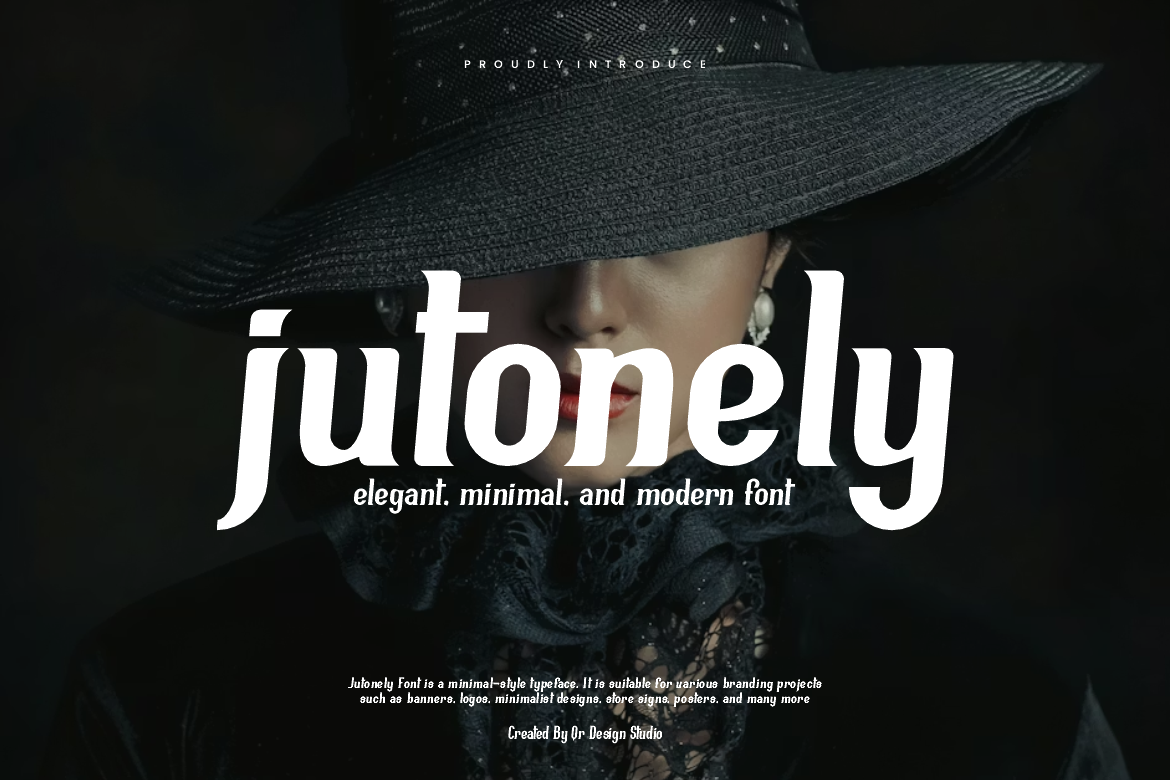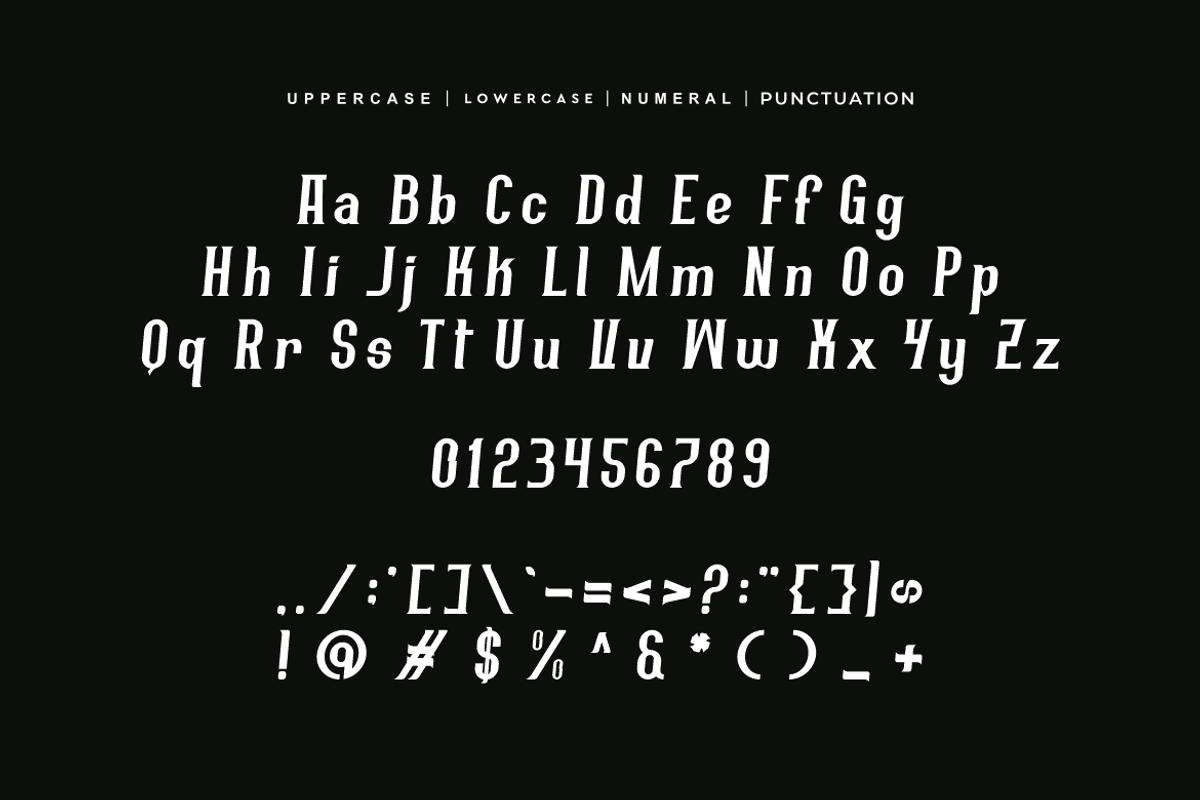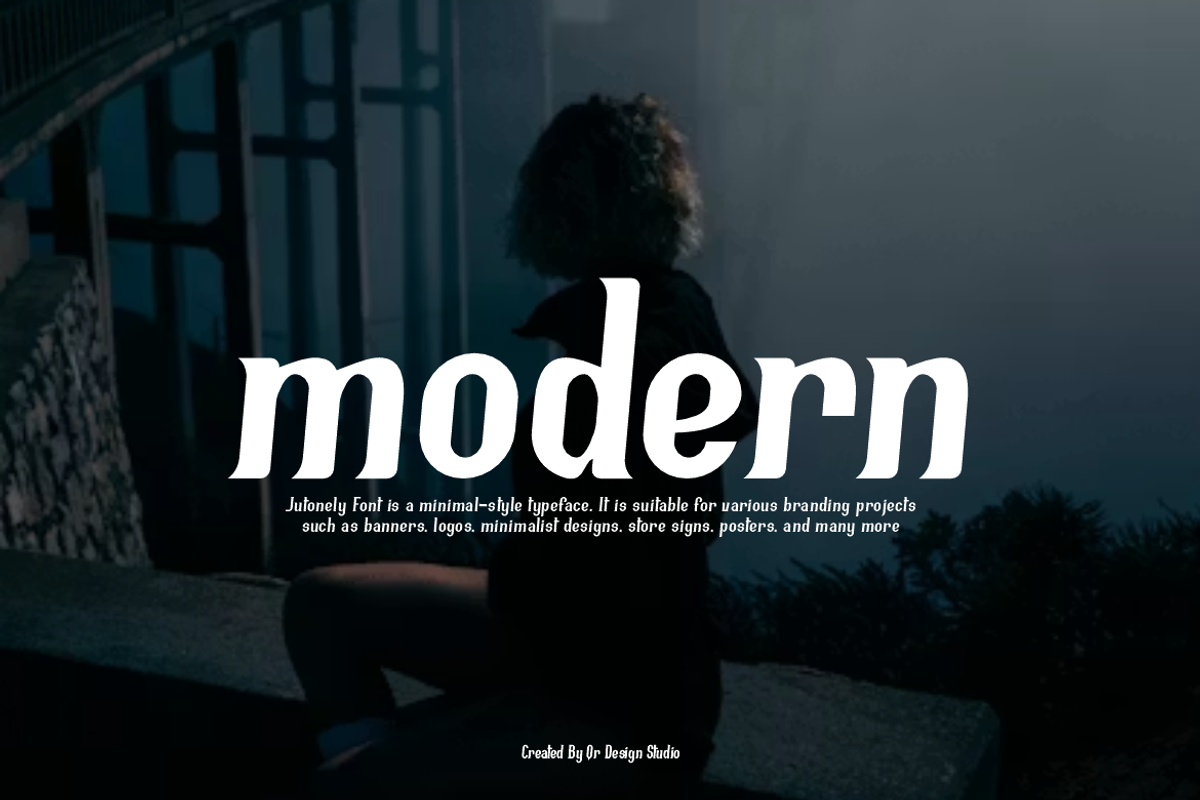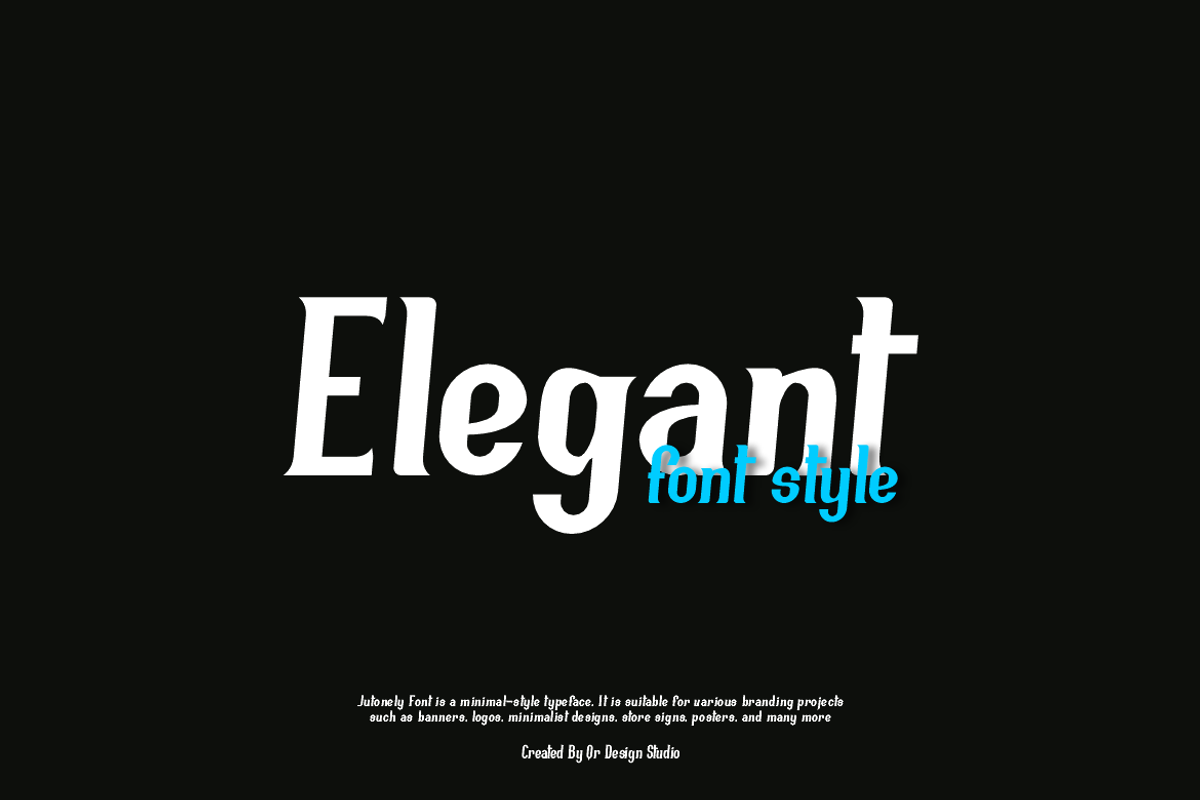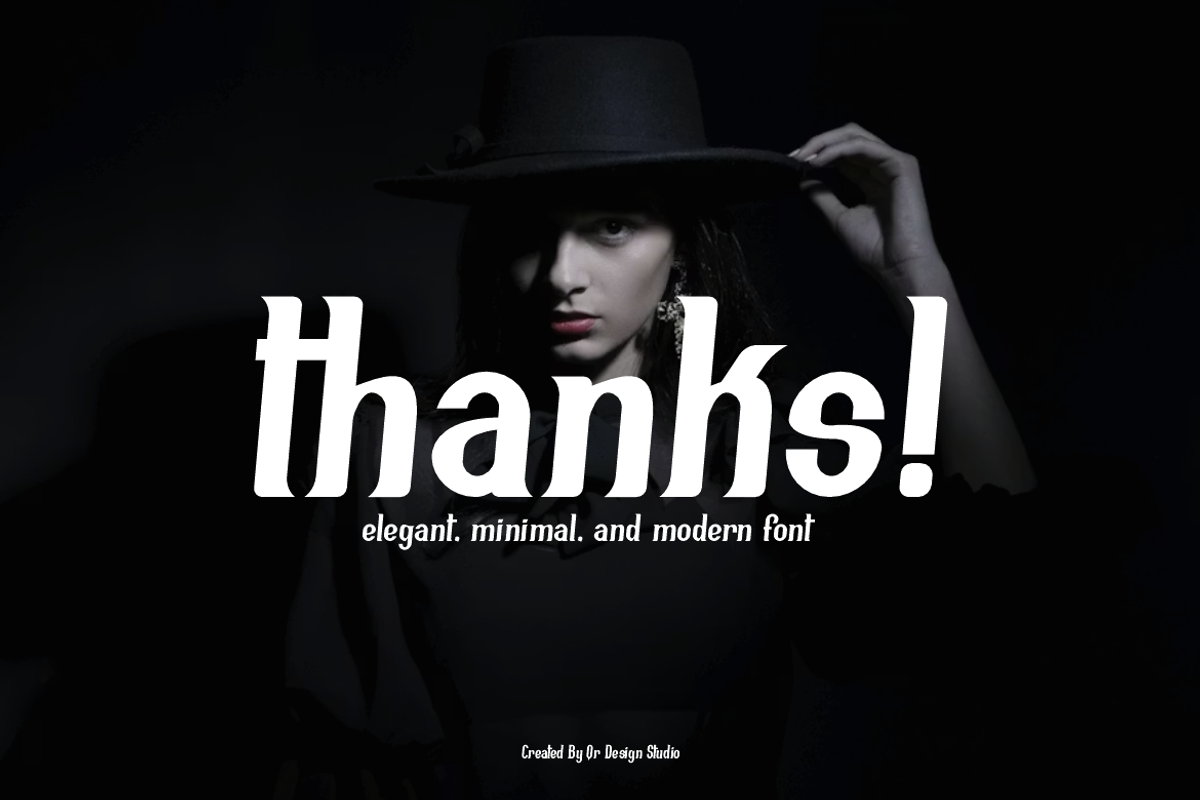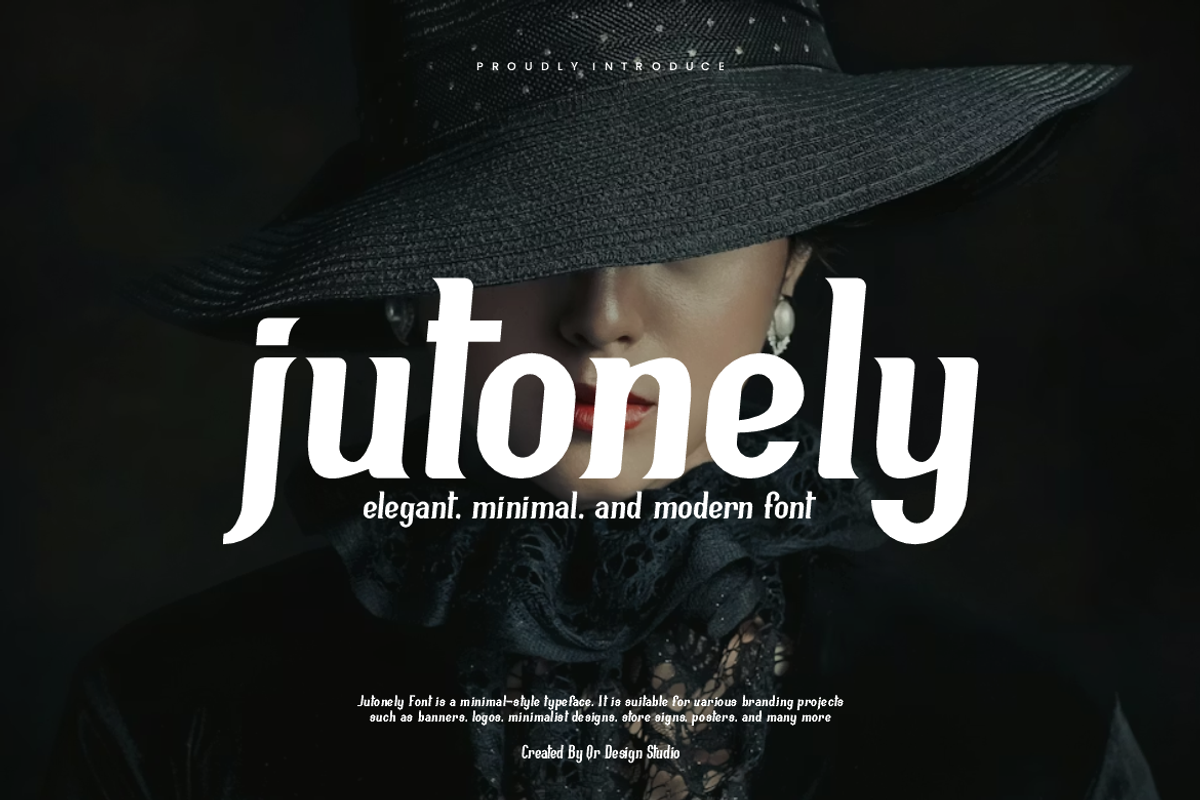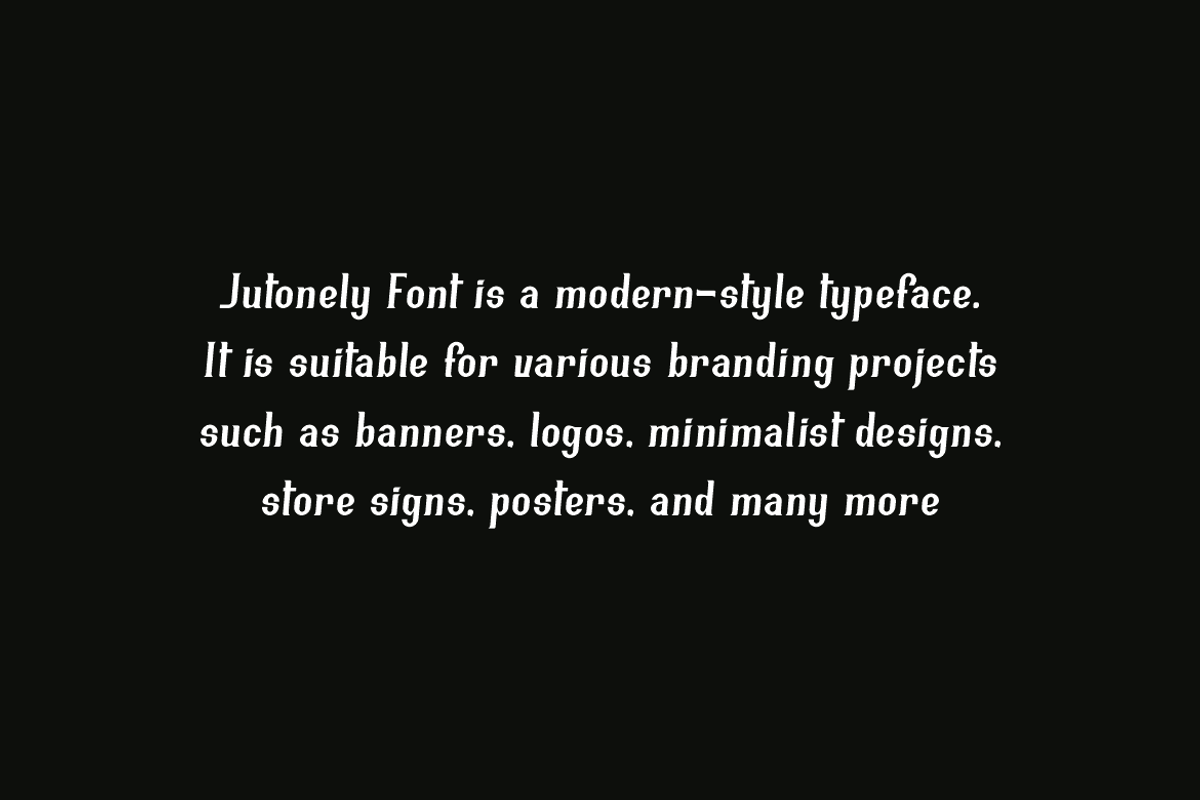
Jutonely - Modern Font
Jutonely Font is a modedern and authentic display typeface. It’s perfect for various branding projects such as logos, minimalist designs, and more. This font stands out beautifully in a wide range of contexts.